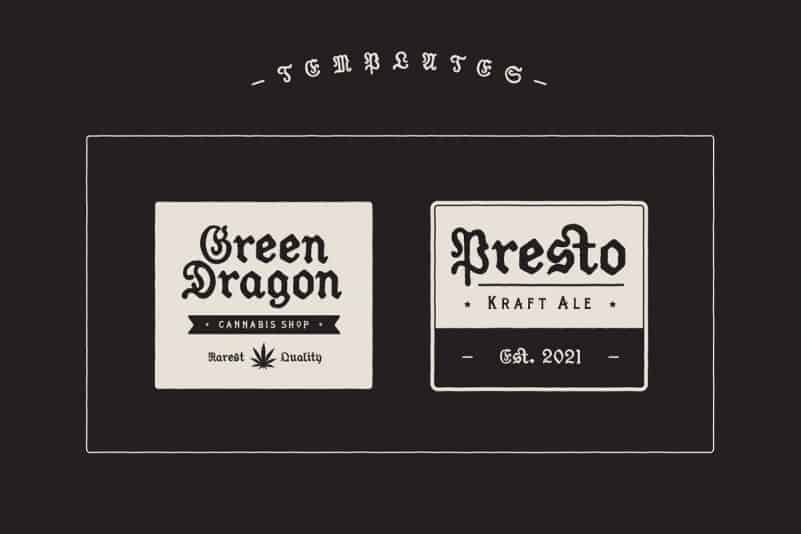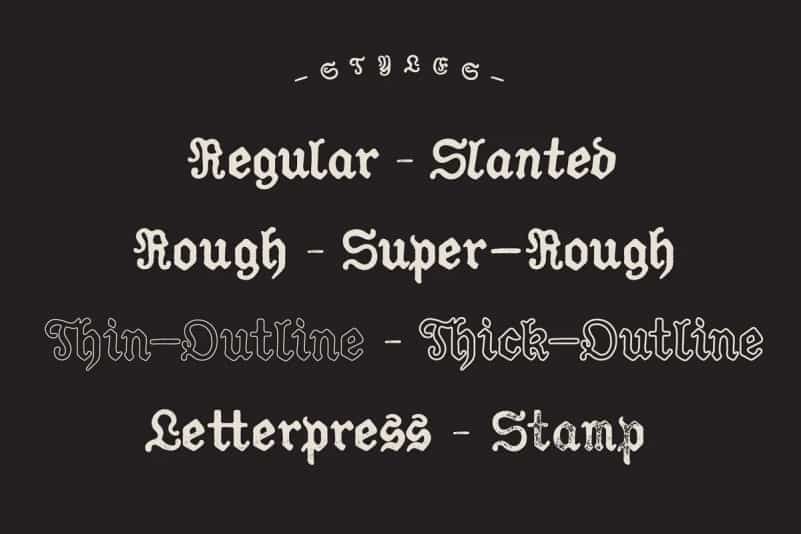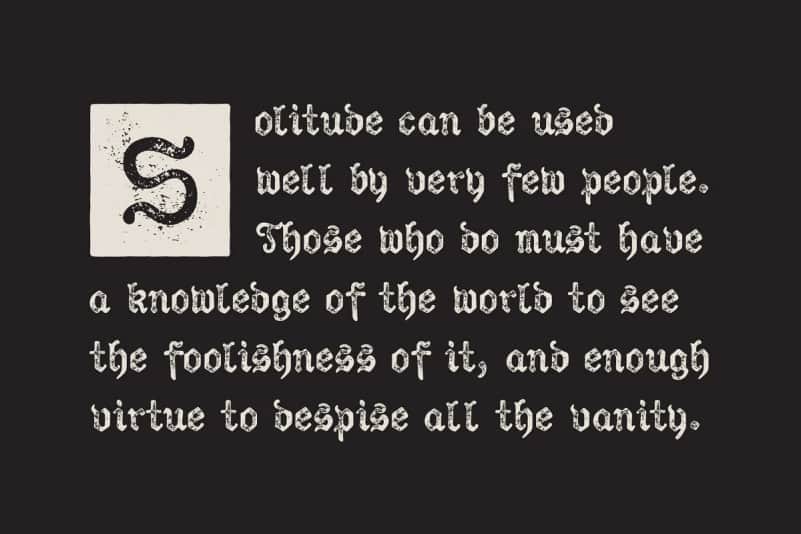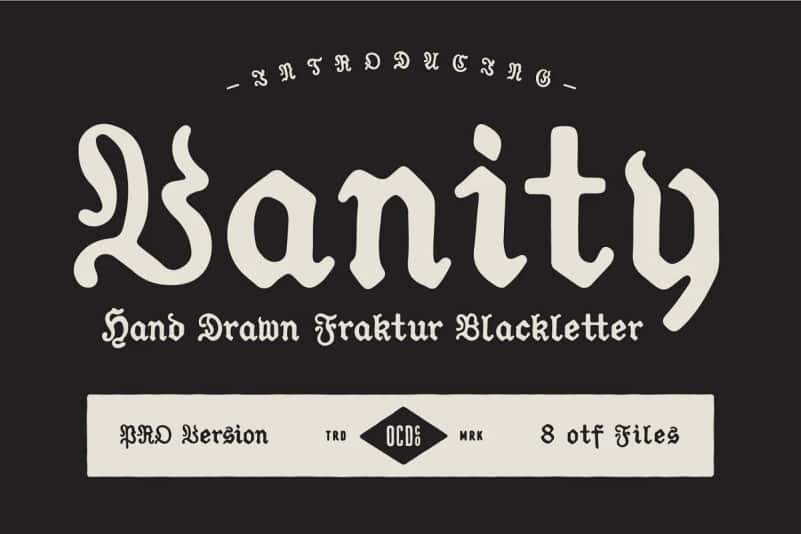
Vanity Display Font
Vanity Display Font is an incredibly authentic and daring blackletter font With roman and serif vintage. Made from font designer named OPENCITYDESIGNCO. Vanity comes in 8 carefully crafted styles with a selection of ligatures as well. Give your work that undeniable handmade quality with this cool and unique Blackletter family.